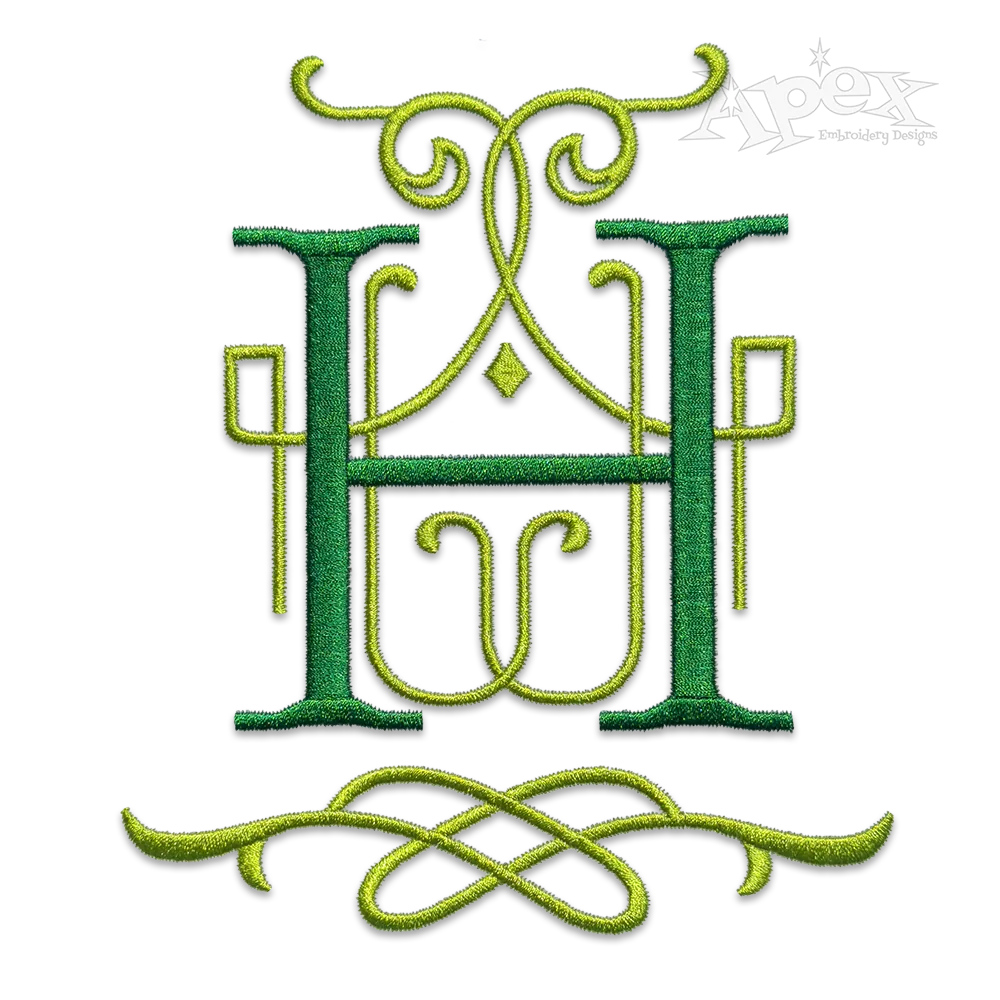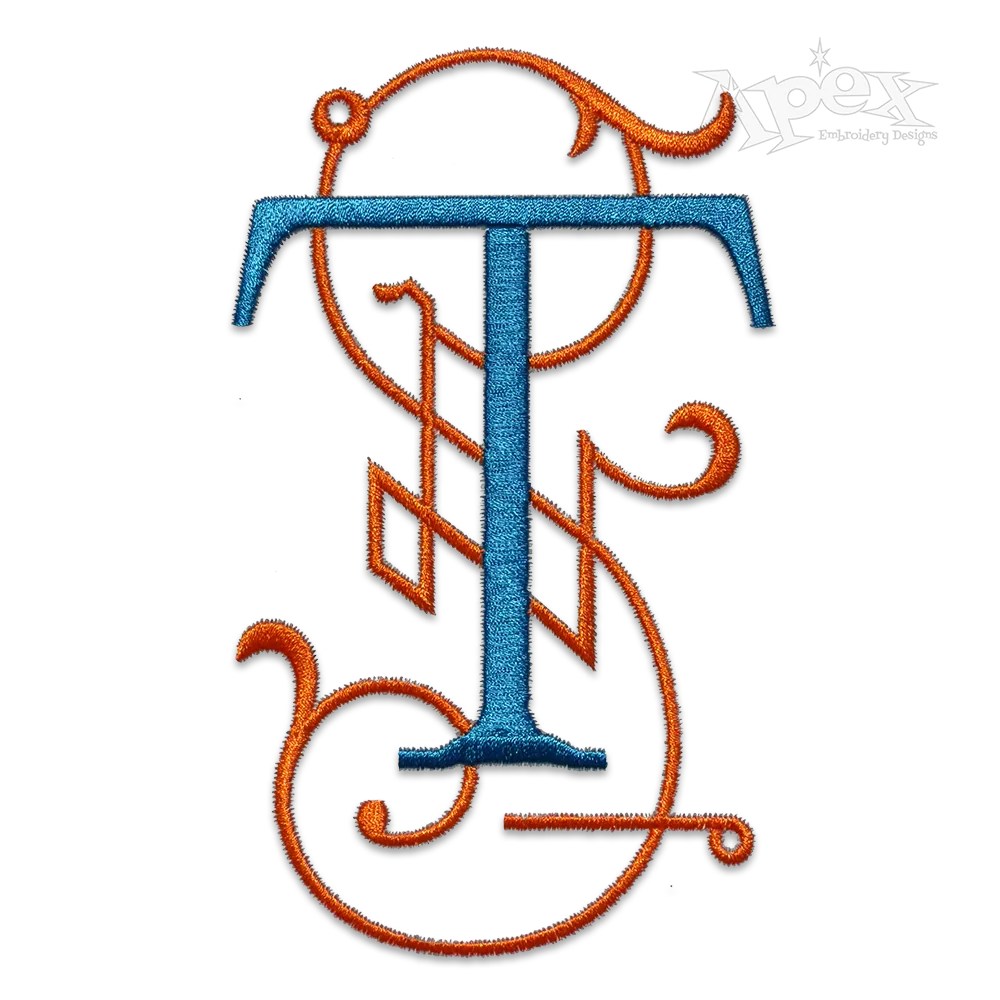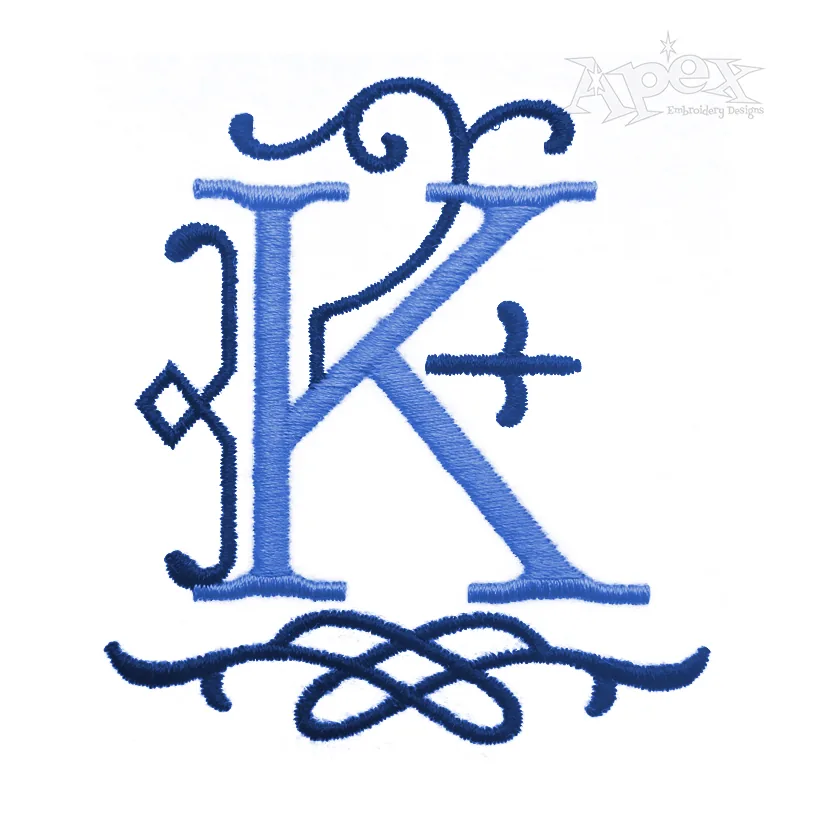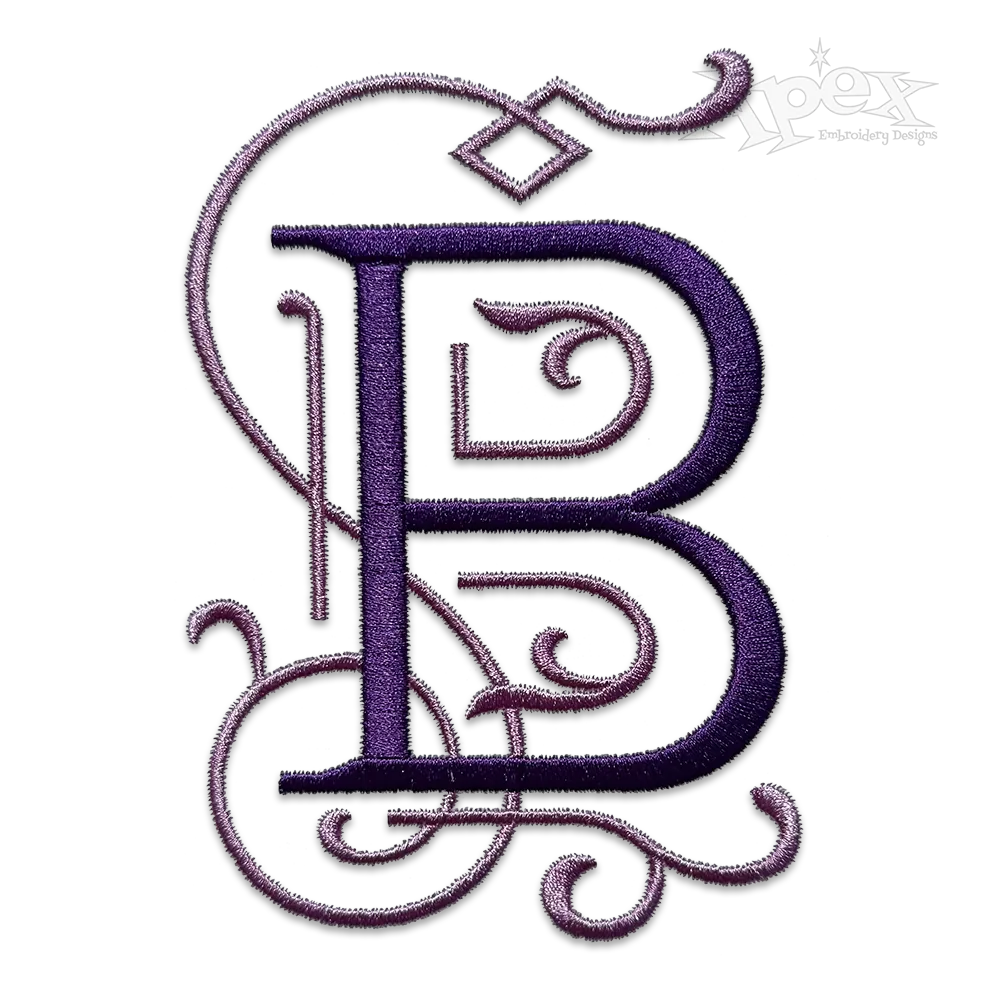
Ornamental Decor Embroidery Font
There is an exquisite quietude found in vintage ornamental crests, where every curve feels intentionally drawn by hand to celebrate tradition and nobility. When digitizing the Ornamental Decor Embroidery Font, our vision was to recreate the lavish romance of antique mingled monograms—designs that do not merely sit upon the fabric, but intertwine with the textile itself. Each letterform in this ornate alphabet balances regal flourishes with crisp, modern clarity, transforming simple personalized gifting into breathtaking heirloom embroidery that commands attention across dining rooms, bridal suites, and grand estates.
Project Ideas for Ornamental Decor
The ornate architecture of this font makes it exceptionally suited for projects that demand grace, distinction, and classic refinement:
- Heirloom Table Linens: Stitch matching dining runners, place mats, and crisp linen cocktail napkins for elevated entertaining.
- Bridal Trousseau Keepsakes: Personalize bride-and-groom dressing gowns, satin pajama lapels, and custom ring-bearer cushions.
- Bespoke Resort Wear: Elevate linen cabana shirts, structured canvas totes, and sun hats with intertwined initials.
- Luxury Bedding & Bath: Crown high-thread-count percale pillow shams, waffle-weave robes, and plush bath sheets with timeless monograms.
- Curated Personalized Gifting: Create memorable bespoke wedding, anniversary, or housewarming gifts on velvet vanity trays, cashmere throws, and heirloom quilts.
Because the Ornamental Decor alphabet features dramatic flourishes and intertwined mingling, strategic placement brings out its most flattering characteristics:
- Corner Diagonal: Angle single or mingled monograms 1.5 to 2 inches from the hemstitched corner of napkins and handkerchiefs for timeless tablescape presentation.
- Center Chest: Place the 3-inch or 4-inch motif centered 7 to 9 inches down from the shoulder seam on robes, loungewear, or structured outerwear.
- Pillow Shams & Cushions: Position the 4-inch or 6-inch size directly in the visual center of boudoir or Euro-square shams to anchor your bedroom styling.
- Cuff & Pocket Flaps: Use the refined 2-inch sizing slightly above the left cuff placket or pocket line for an understated bespoke signature.
Ornamental Decor Craft & Letterform Details
True embroidery artistry is defined by how stitches breathe across woven threads. In the Ornamental Decor collection, each capital letter is mapped with sculpted satin columns that taper and swell with genuine calligraphic balance. We have individually tuned the pull compensation and travel underlay beneath each curving scrollwork flourish, ensuring the borders remain razor-sharp while the centers stay rich, glossy, and tactile.
Special engineering was applied to where letters overlap and mingle, deliberately staggering density layers to eliminate fabric bulk and thread breakage. The result is a smooth, continuous ribbon of thread that catches the light like fine antique silverwork, delivering the unmistakable grandeur of hand-stitched heritage monogramming with the flawless reliability of master digital design.